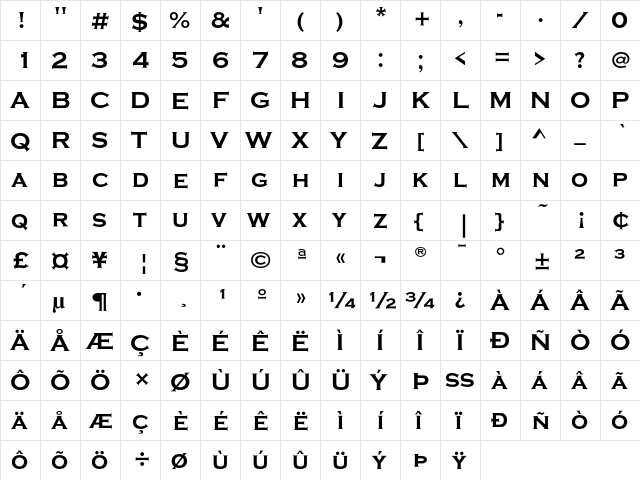
CopperplateEF Bold
Design Context for CopperplateEF Typeface
CopperplateEF offers clean, dependable letterforms without strong stylistic allegiance, making it a practical choice for designers who need flexibility. Its bold stroke weight gives it real presence on the page.